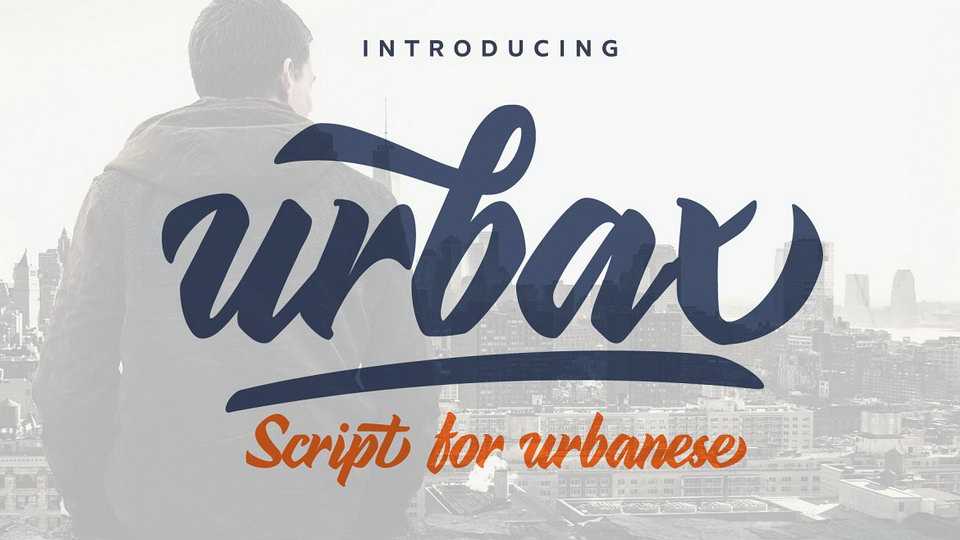
Download Urbax font, an expressive hand lettered script for urban people and urban project. Fits for logos, brand, titling, shirt, hoodie, product package, prints and various creative projects.